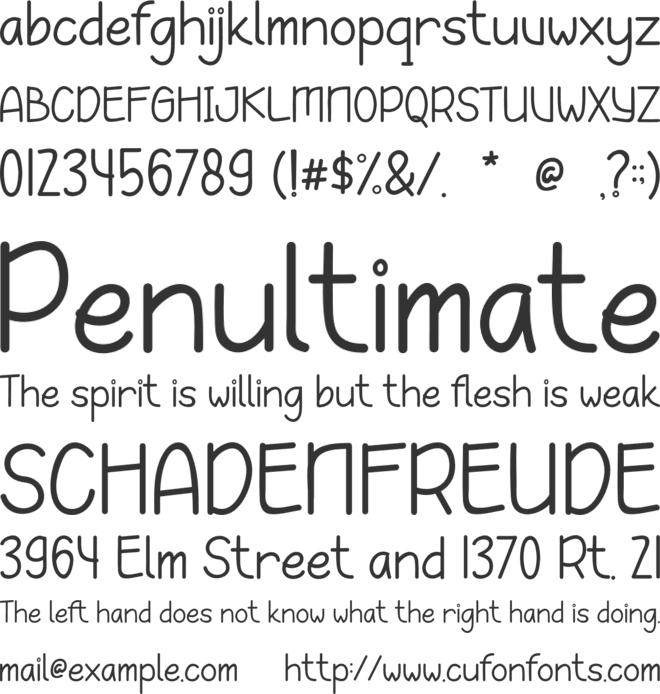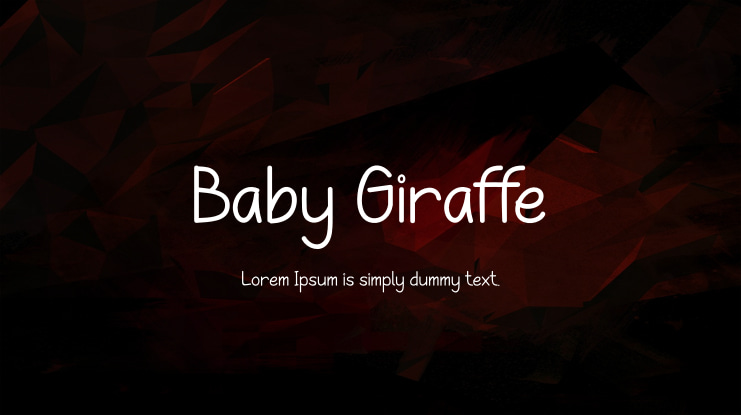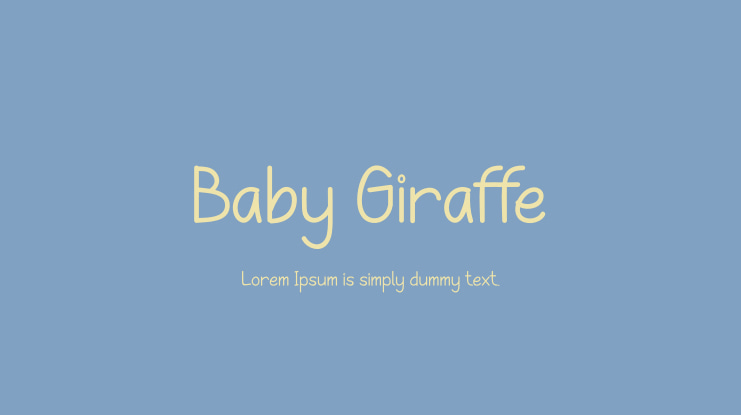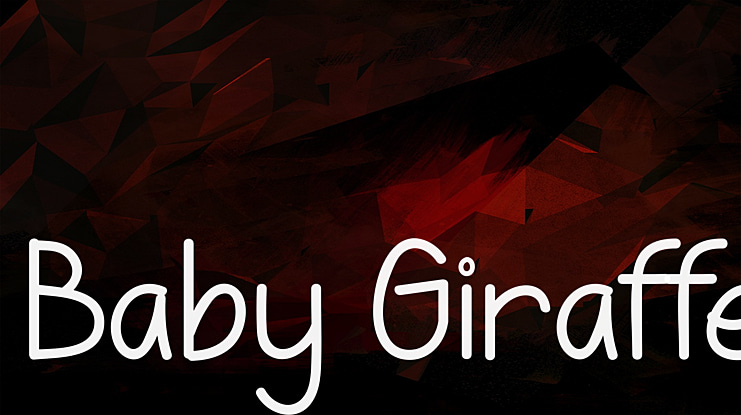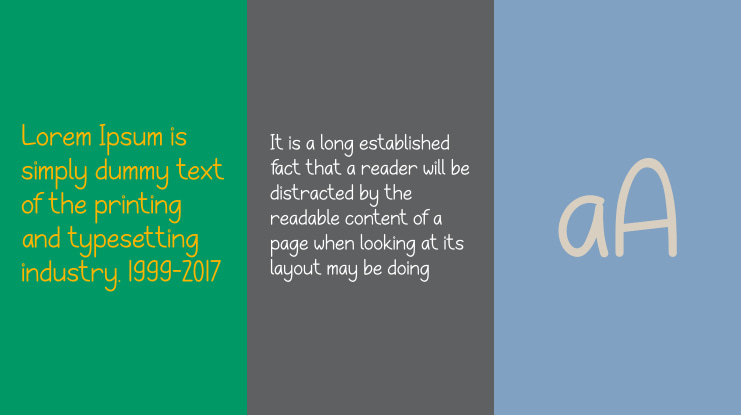
Baby Giraffe Font
The latest style letters are perfect for wall displays, wedding invitations, social media post logos, advertisements, product packaging, product designs, labels, photography, watermarks, invitations, stationery, and any project that requires taste handwriting.